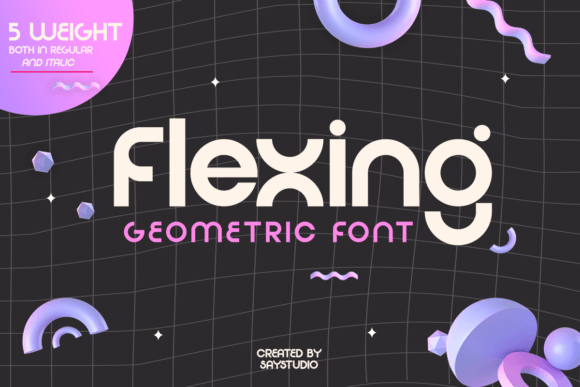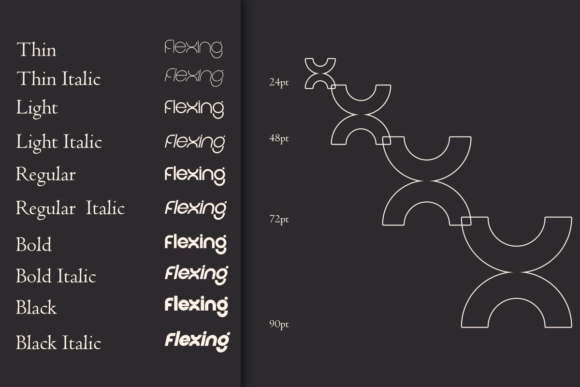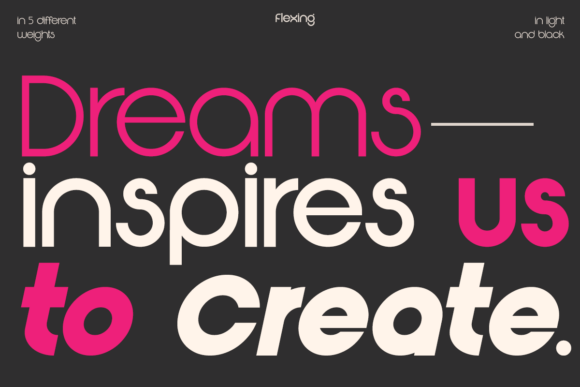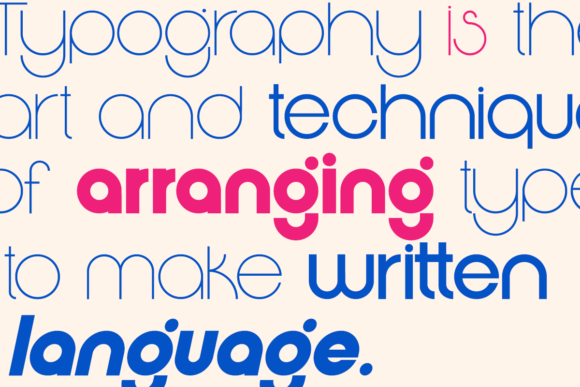
Flexing Font: Unique Geometric Sans Serif for Modern Logo Design
About the Flexing Font
Get ready to be inspired by Flexing Font, a fresh and dynamic typeface for modern creators. Flexing is a distinctive geometric sans serif family typeface that stands out with its unique characters. It available in 5 weights both in regular and italic. Striking the perfect balance between simplicity and sophistication, it offers a clean and modern aesthetic. Ideal for both text and display use, Flexing excels in branding, advertising, packaging, headlines, magazines, websites, logo designs, and beyond, making it a versatile choice for any project.
Flexing’s geometric structure and clean lines make it particularly effective for headlines, branding applications, and short, impactful text on packaging or posters. Its strong, modern personality lends itself well to technology brands, contemporary fashion, and minimalist design concepts. However, its boldness might prove less suitable for lengthy body text or UI elements where readability is paramount.
For optimal visual harmony, pair Flexing with a complementary serif like Garamond for a classic yet contemporary feel, or a softer sans-serif such as Lato to balance its geometric strength. A playful script font, like Pacifico, could add a touch of personality to projects where a more approachable feel is desired.
Flexing’s overall personality is best described as bold and modern, conveying confidence and sophistication. Avoid pairing it with overly ornate or decorative typefaces which might dilute its clean aesthetic.
Flexing Font Usage Examples
Flexing Font Example